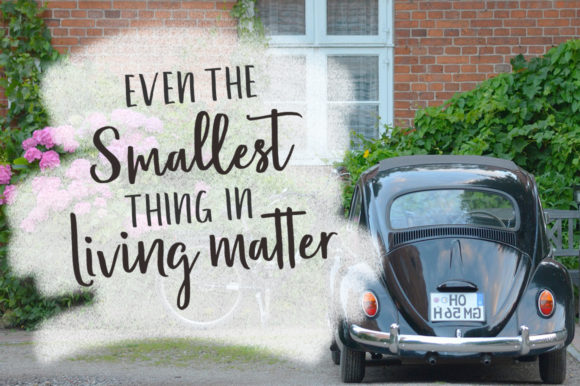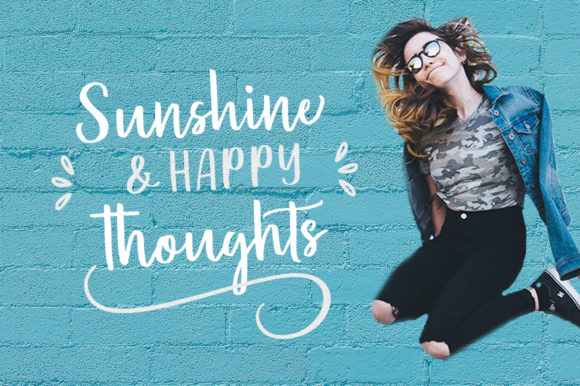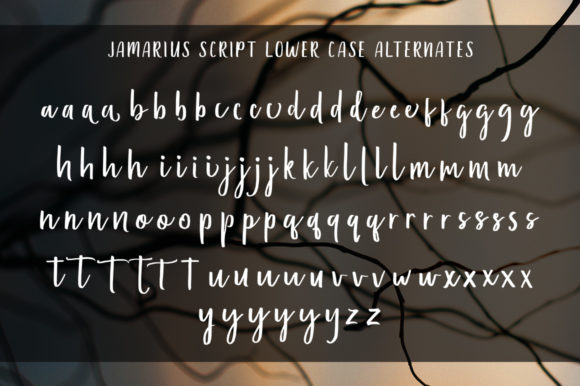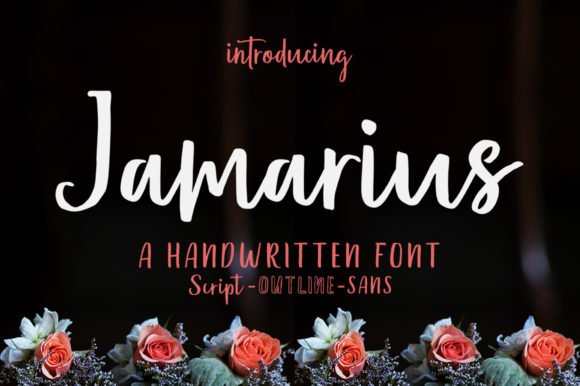
Introduction to Jamarius Font
Jamarius is a playfully modern script with an authentic feel.
Fall in love with its personal style .
Key Features of Jamarius Font
Why Choose Jamarius Font?